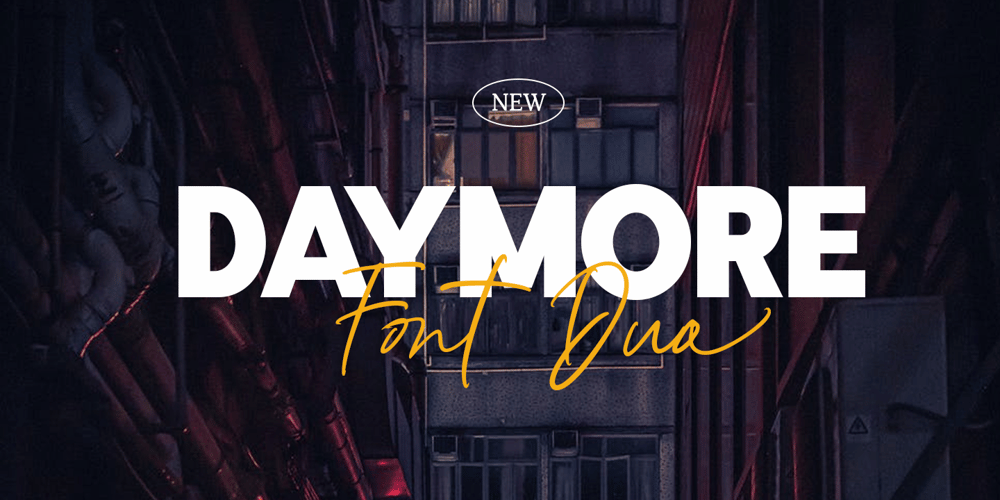
Daymore Font Family was designed by Gustian Agung Asprilla and published by Rillatype. Daymore contains 2 styles and family package options. Introducing, Daymore Font duo!Daymore is a duo font that complements each other. By using Daymore, you can simply use one font family without thinking about other fonts to complete the design you need. In the process of making this font, I was careful in choosing what font concept would be able to complement a bold sans serif font so that it could be balanced so that it would produce a blend of firm and strong sans serif fonts, as well as handwritten fonts that flowed naturally. The Daymore font duo is perfect for use as wedding invitations, branding, logos, etc.